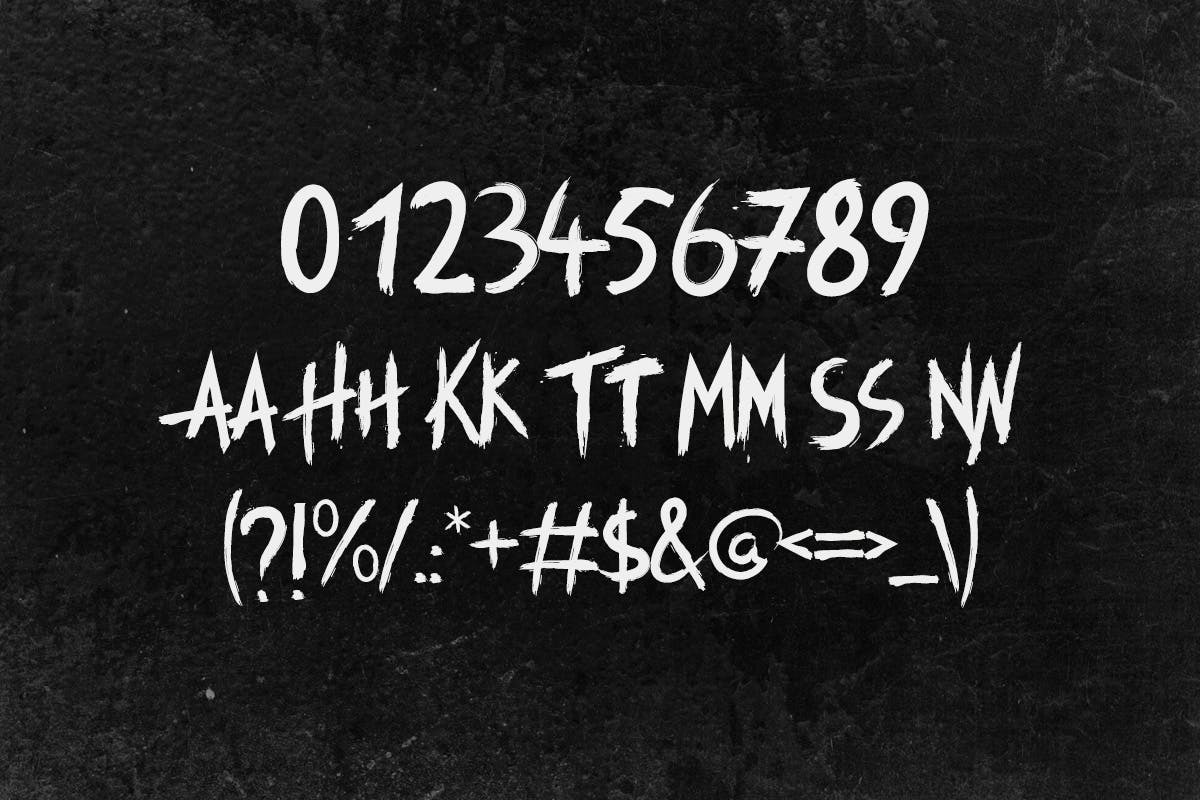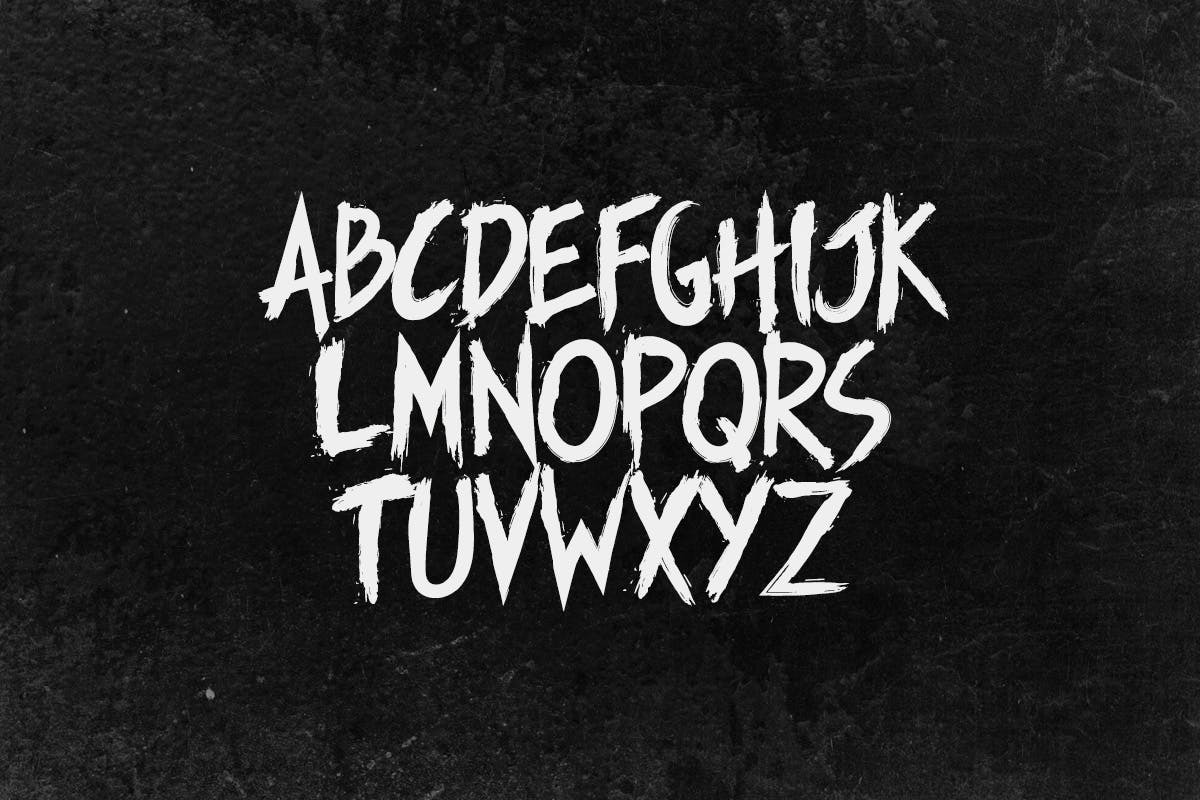
Manticore - Brush Font
Manticore - Brush Font by Tugcu Design Co. is a font selected for branding, posters, packaging, typography.
- Includes numerals, punctuation, couple of extra glyphs and alternates for some letters.
Manticore - Brush Font by Tugcu Design Co. fits naturally into Branding, posters, packaging, typography.